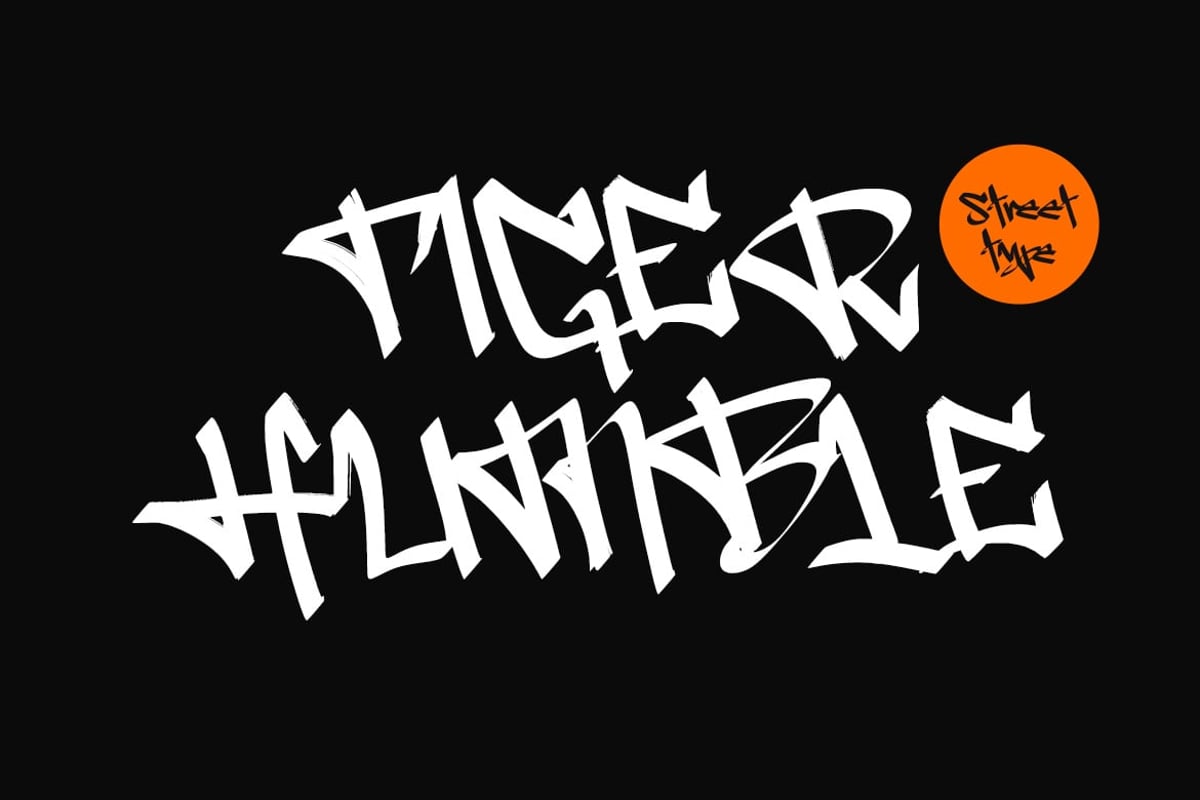
Tiger Humble - Graffiti Font
Unleash raw street energy with Tiger Humble's bold graffiti letterforms and hand-painted urban aesthetic.
This dynamic typeface features aggressive letterforms with sharp angles, irregular outlines, and an authentic street art vibe. Each character showcases varying stroke widths and energetic, raw texture that delivers a distressed yet powerful visual impact.
The design captures the essence of rebellion and urban culture, making it perfect for impactful headlines, striking logos, poster designs, and album artwork. Any branding project requiring an edgy, contemporary street-inspired identity will benefit from its commanding presence.
Its bold visual strength makes it ideal for merchandise and promotional materials targeting urban, youthful audiences who appreciate authentic street culture aesthetics.
- Uppercase letters
- Lowercase letters
- Alternate characters
- Numerals
- Punctuation marks